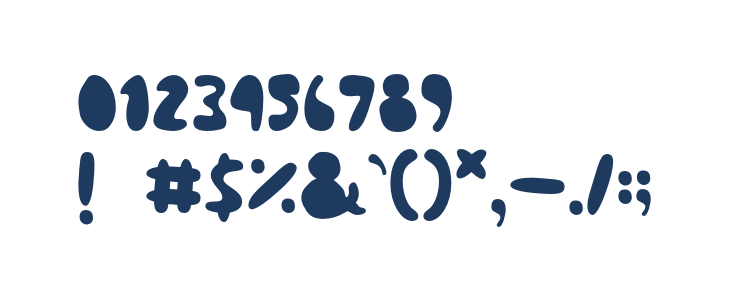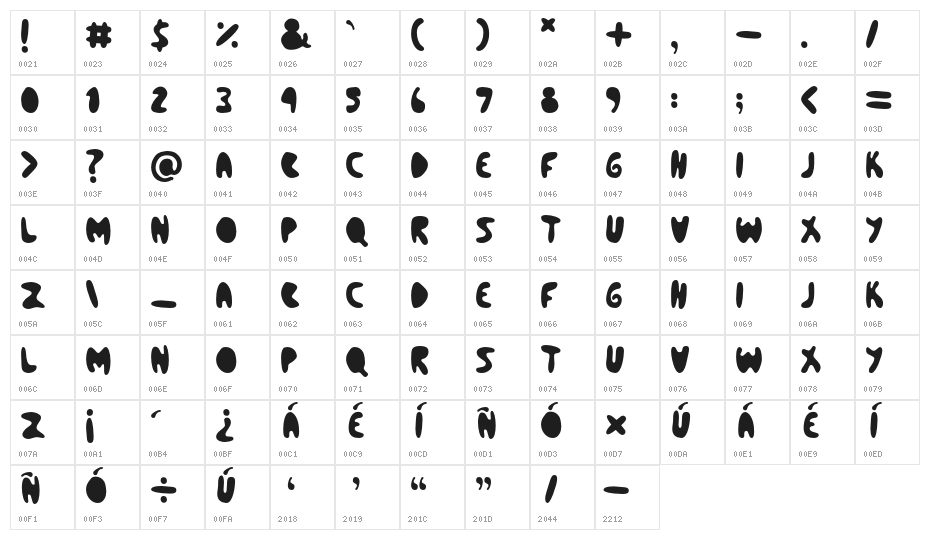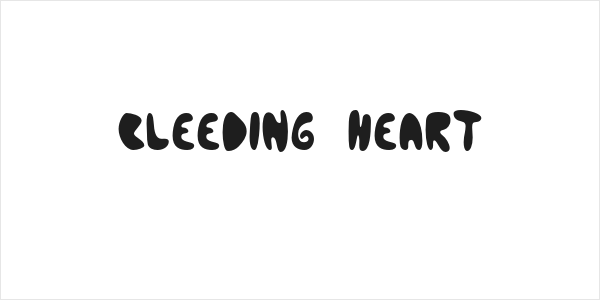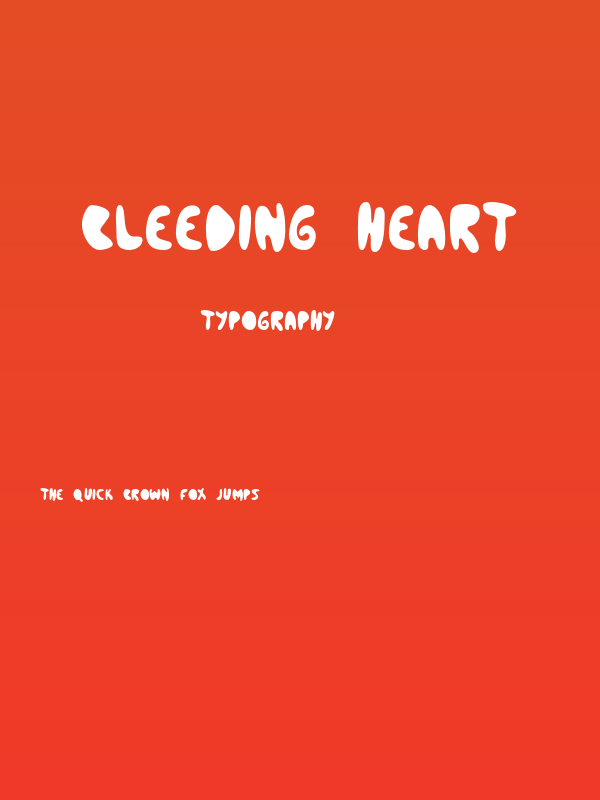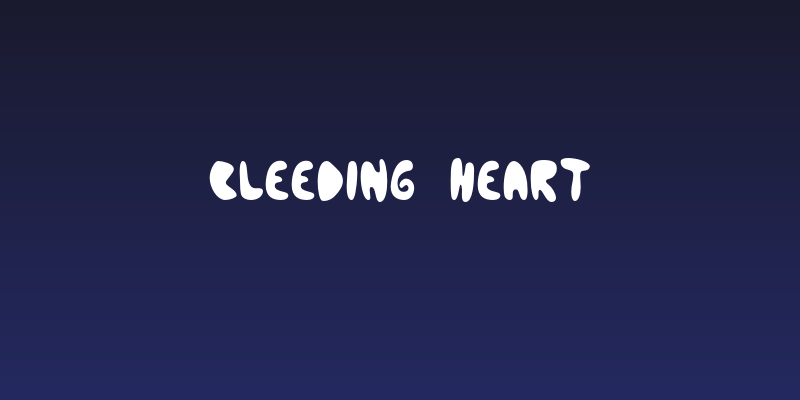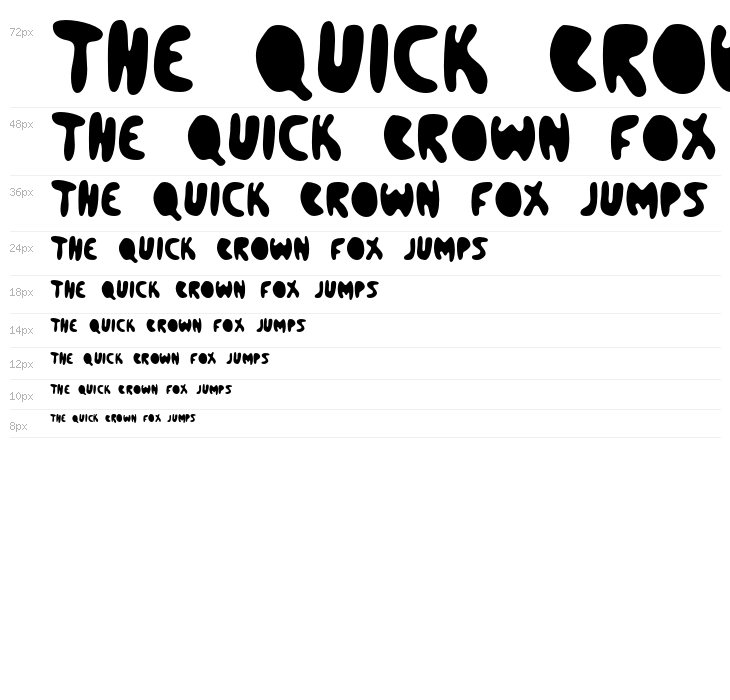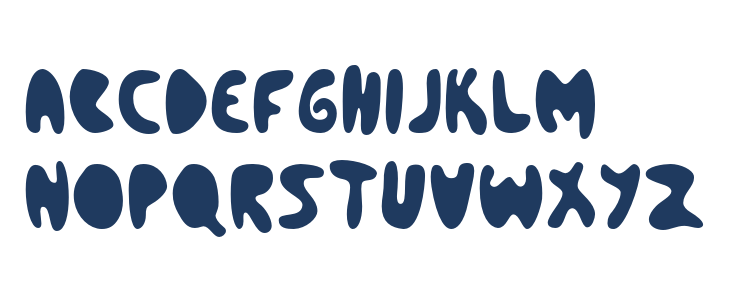
Bleeding Heart Font
| Gesamtstil | Playful, Whimsical |
| Vorgeschlagene Projekte | Ideal for children's books, playful branding, party invitations, and creative posters. |